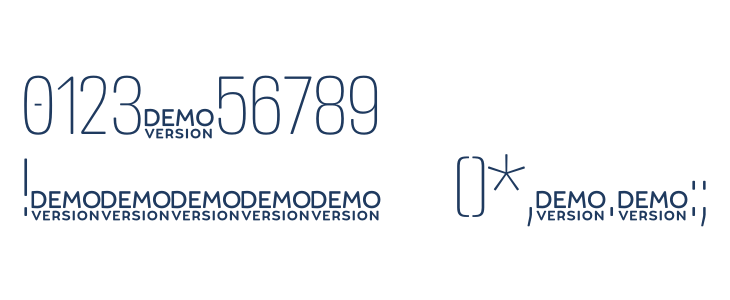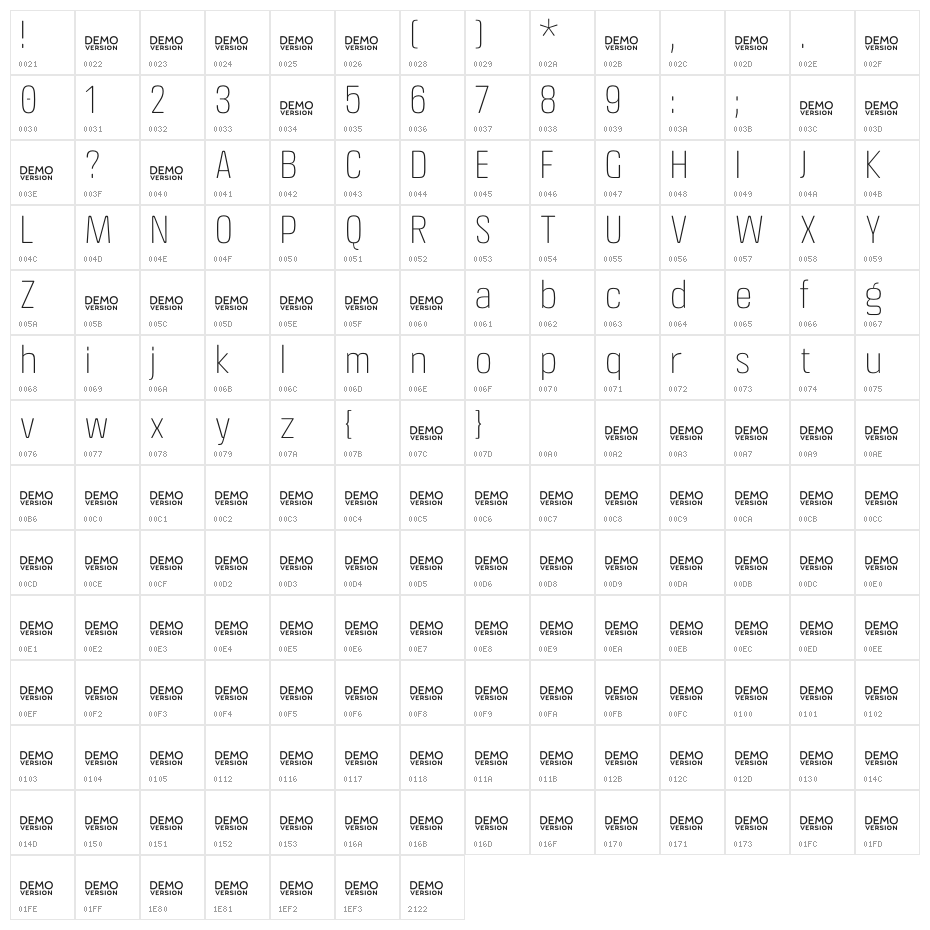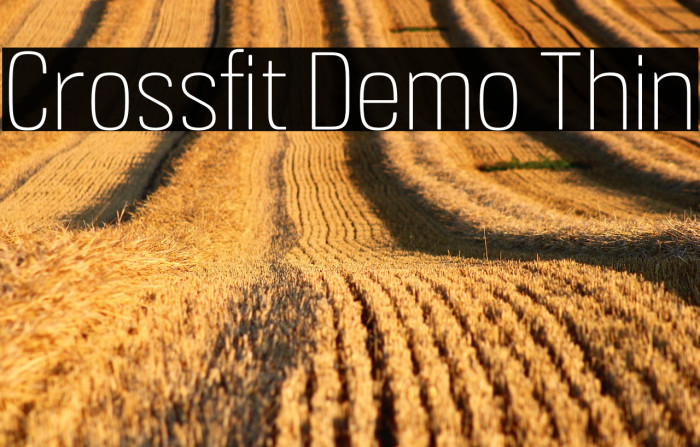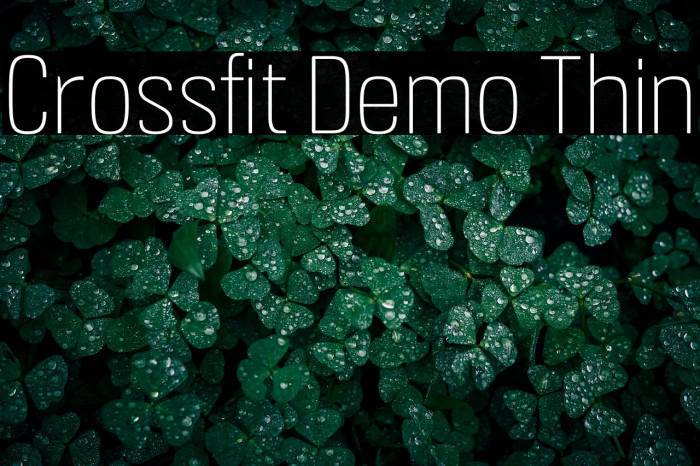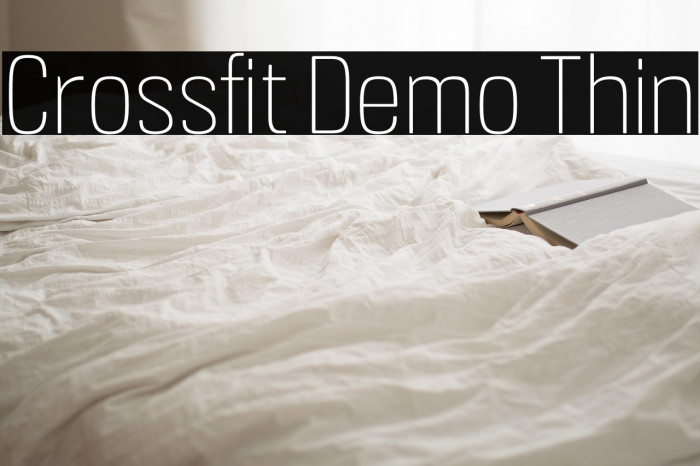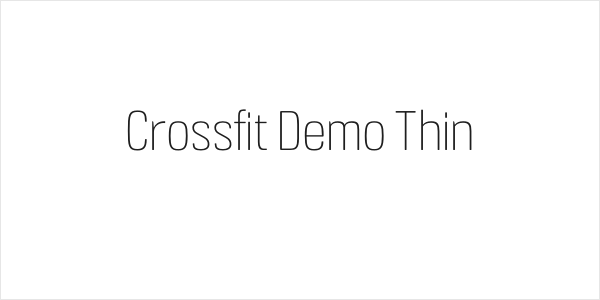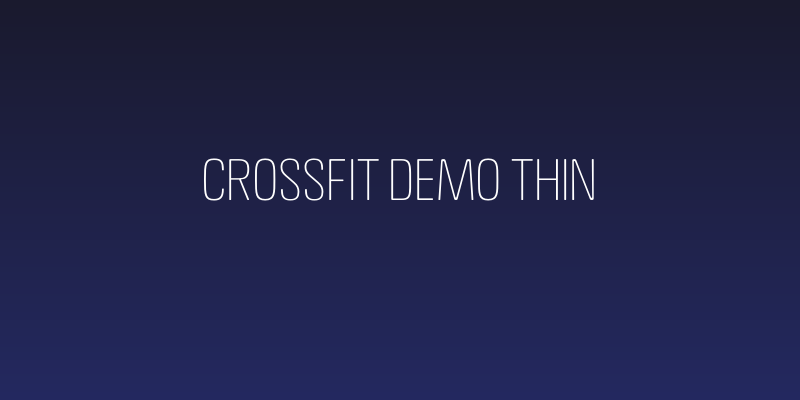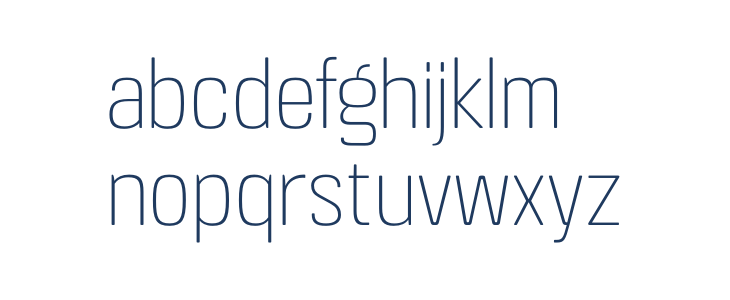
Crossfit Demo Thin Font
Crossfit Demo Thin Description
This font features a sleek, modern design with thin, elongated letterforms that convey a sense of elegance and sophistication. The characters are sans-serif, providing a clean and minimalist appearance. The uppercase letters are tall and narrow, while the lowercase letters maintain a consistent height, creating a harmonious balance. The numerals are similarly styled, offering a cohesive look across all characters. The special characters are designed with the same thin strokes, ensuring uniformity. This font is ideal for projects that require a contemporary and stylish aesthetic.